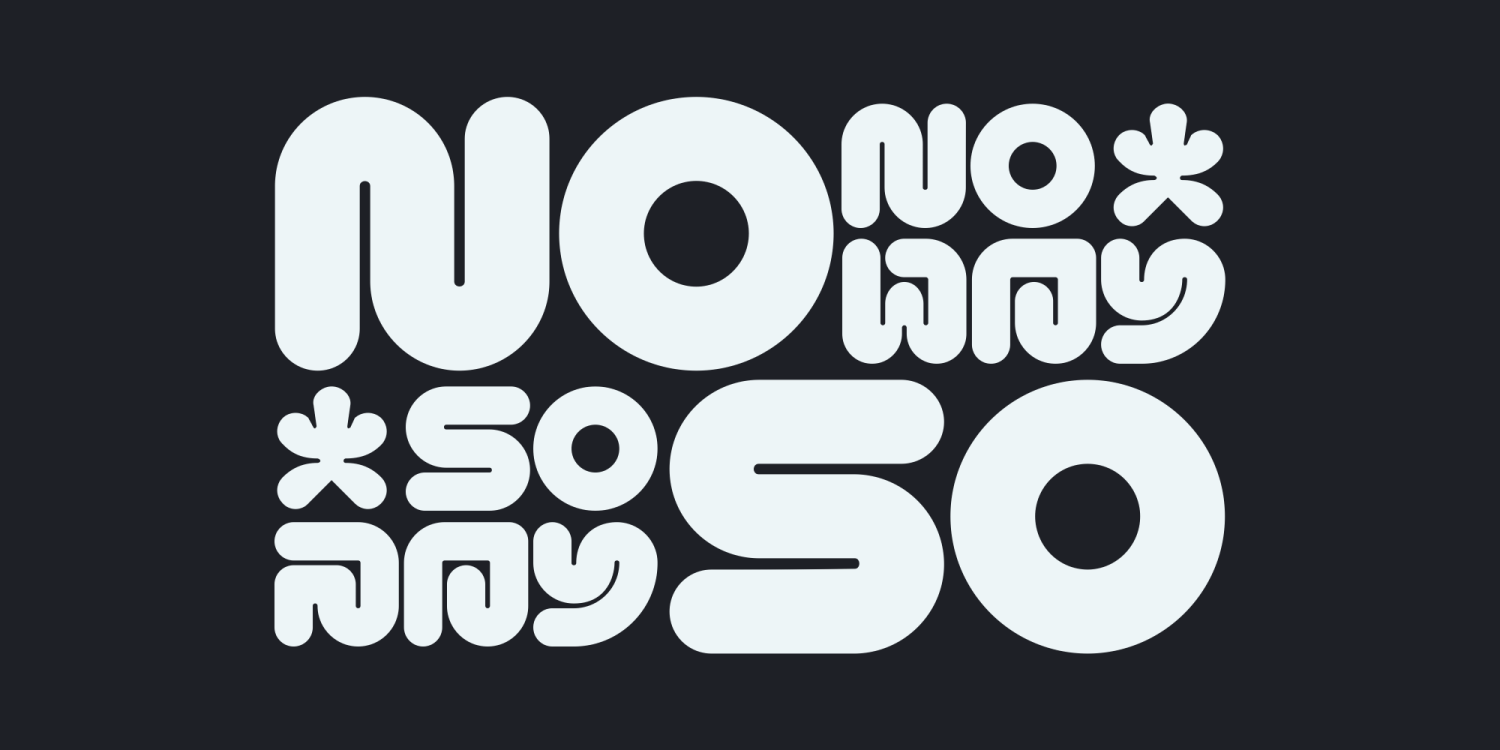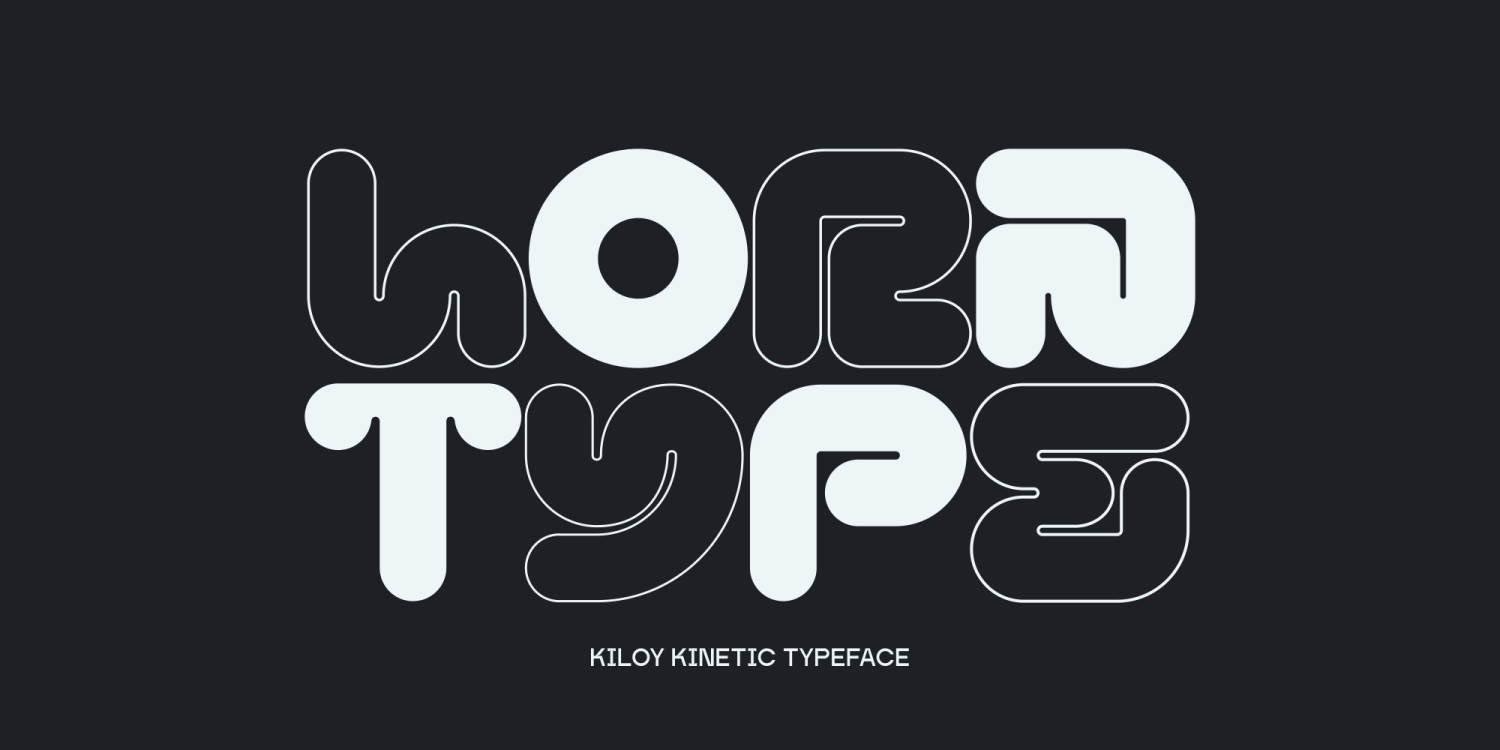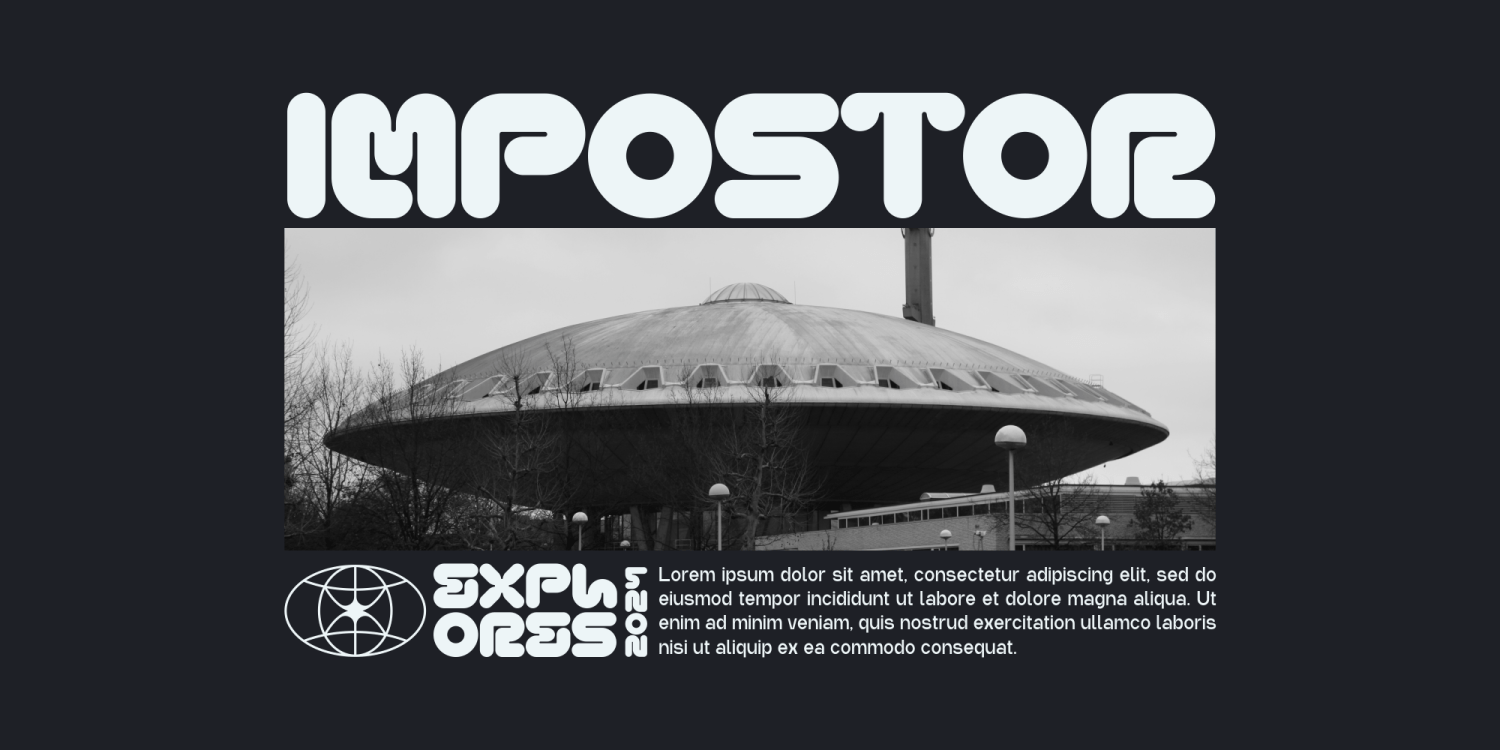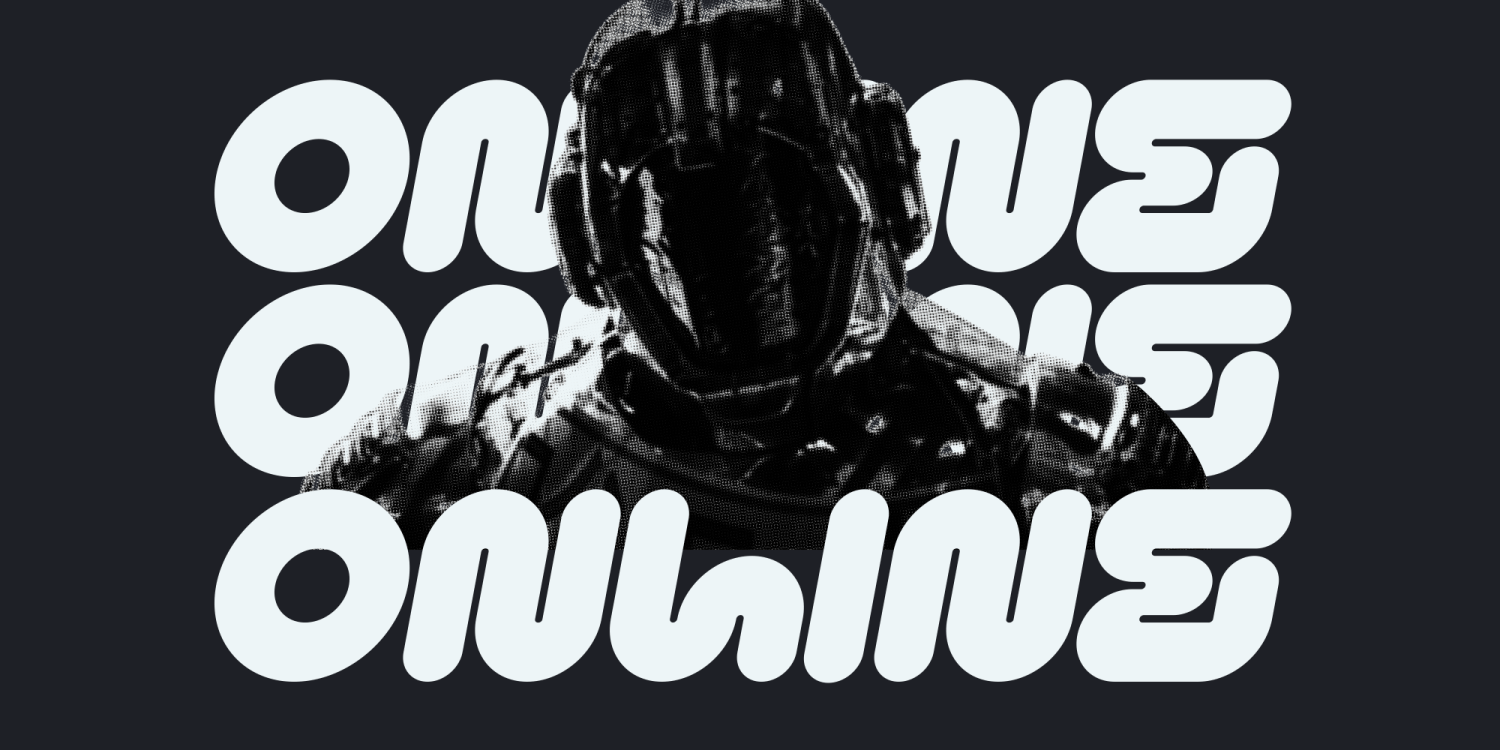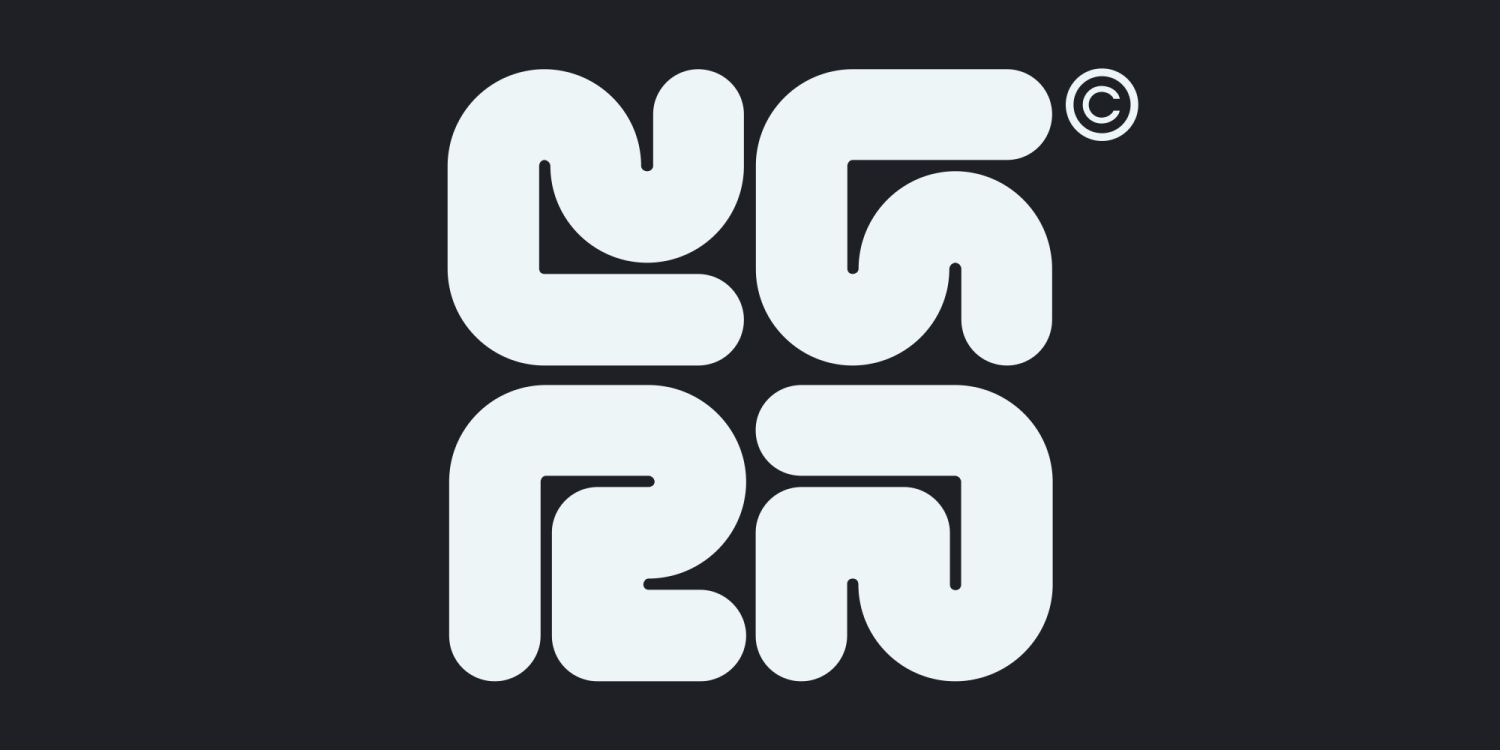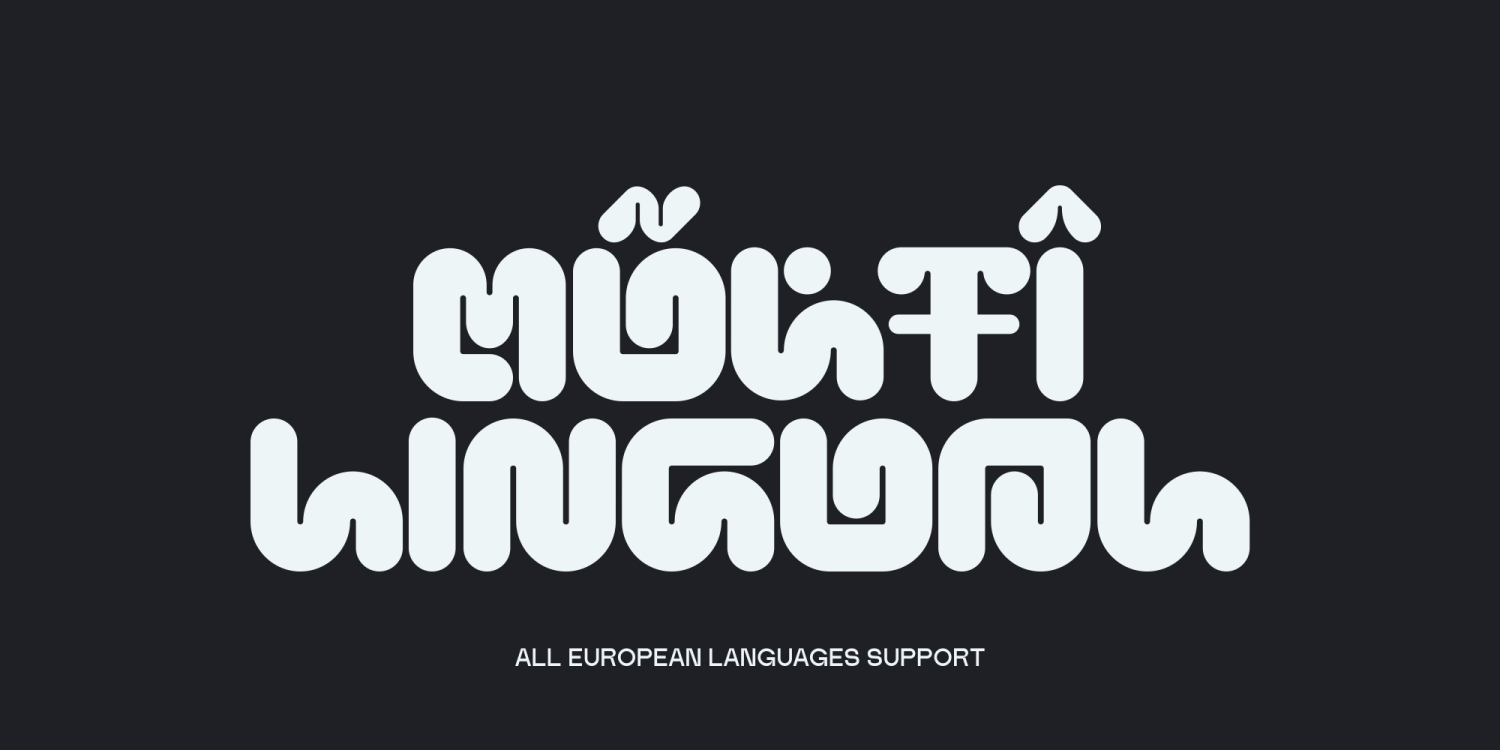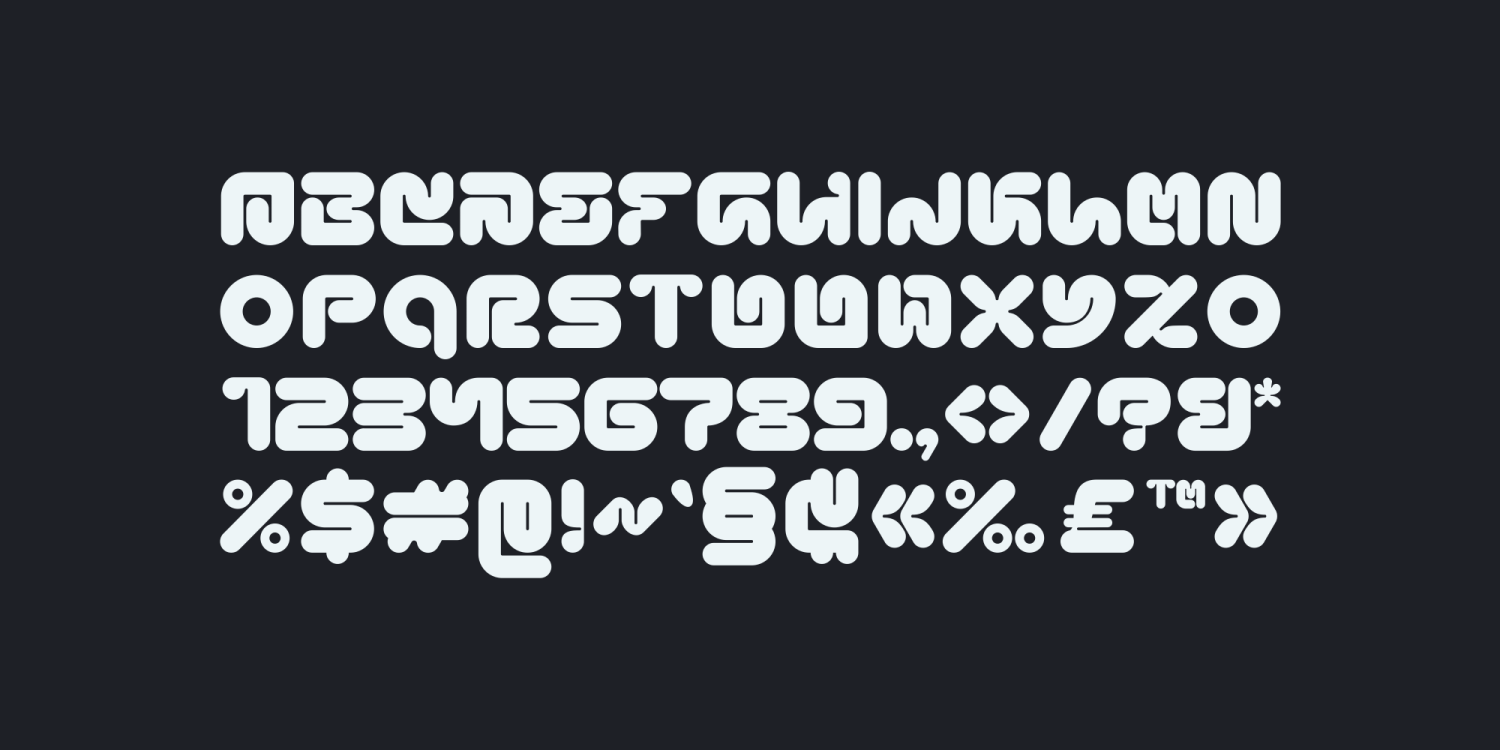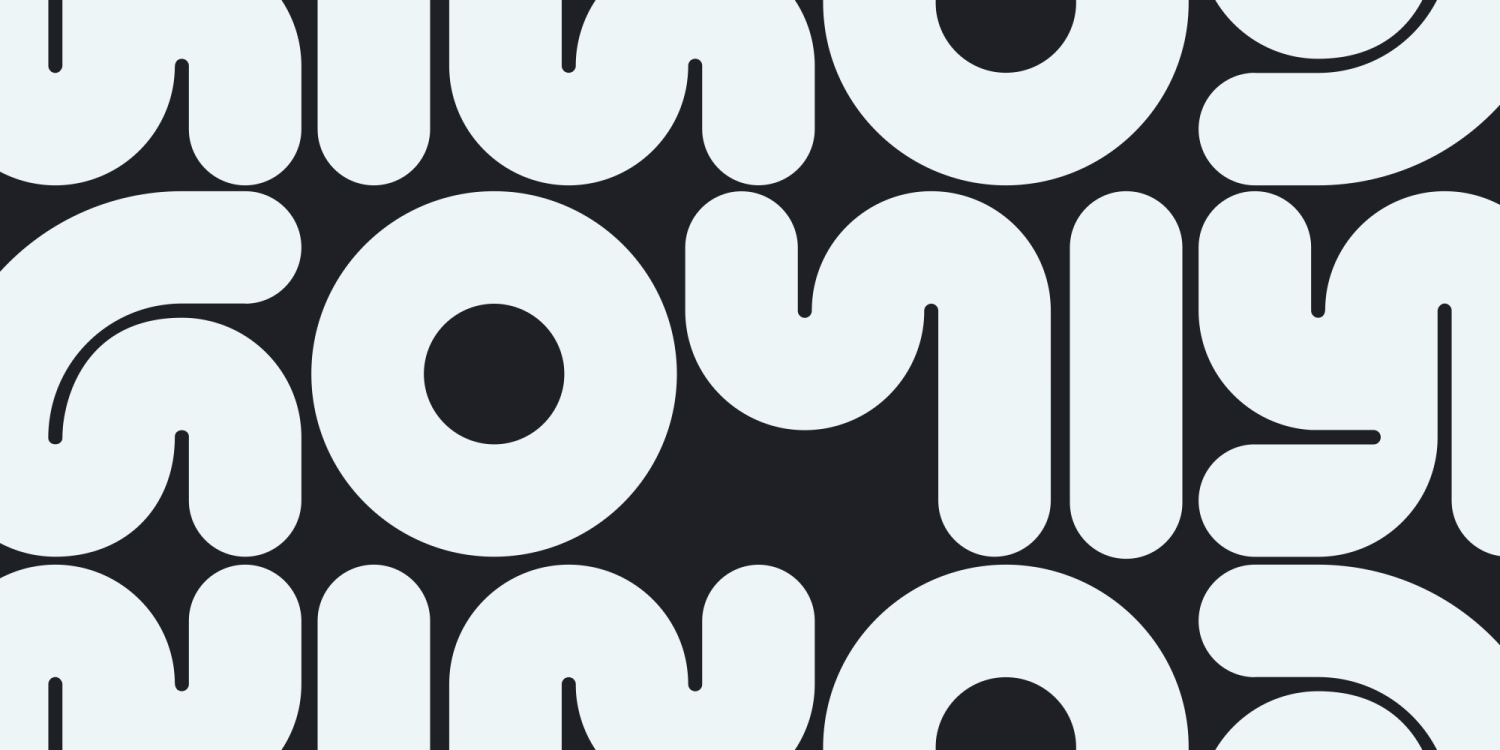
Kiloy
Font Family by Marvadesign
Introducing Kiloy is a techno decorative font characterized by its bold and rounded style. It features perfectly square-shaped forms, giving it a clean, geometric appearance. The font is well-suited for futuristic and modern designs, providing a sense of precision and structure. Its thick, rounded edges create a balance between strength and softness, making it ideal for logos, headlines, and digital interfaces. The overall aesthetic of Kiloy conveys a high-tech, industrial vibe, while maintaining a polished and approachable look through its curved elements.
Kiloy Regular
Kiloy Italic